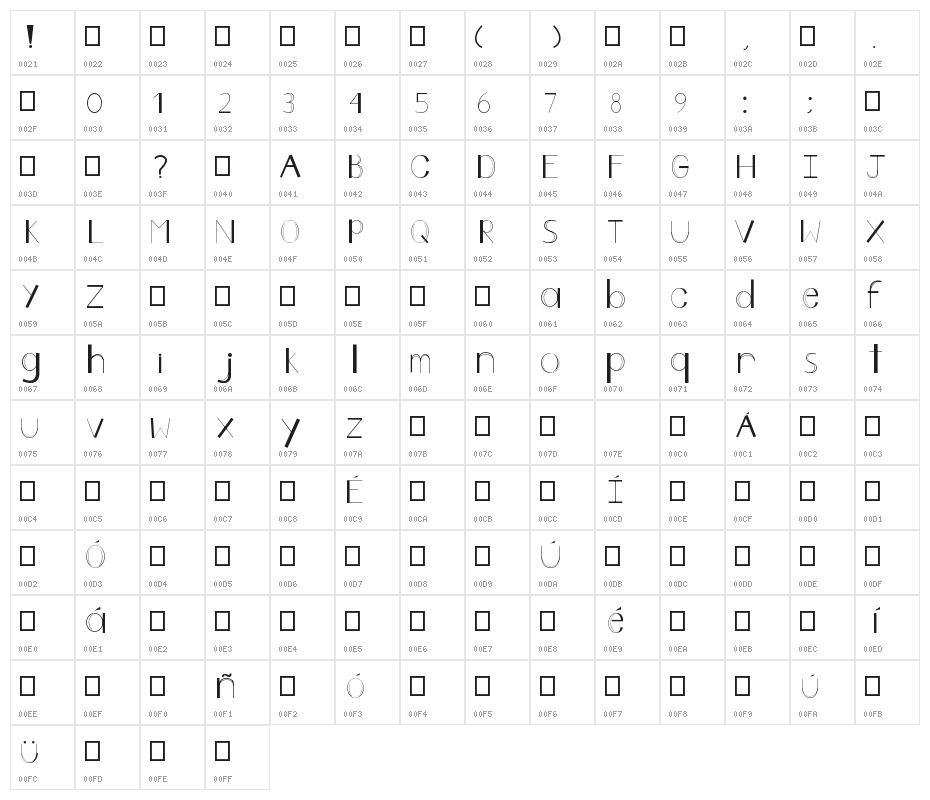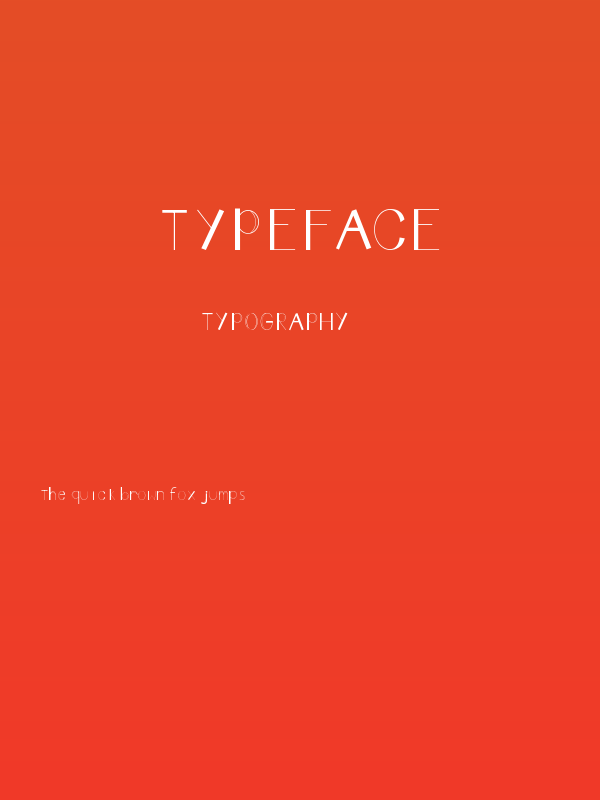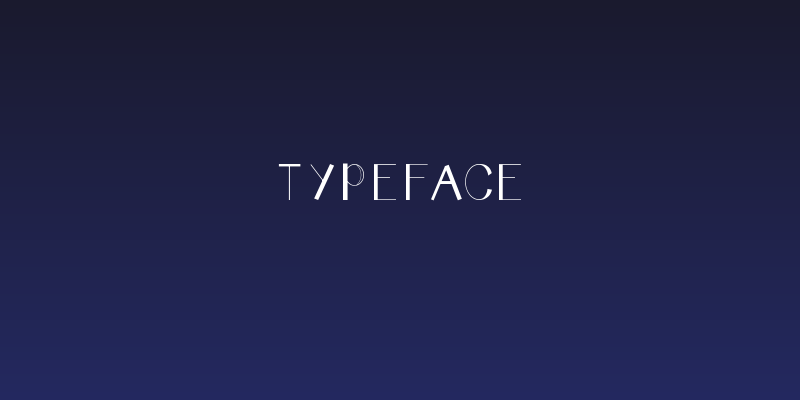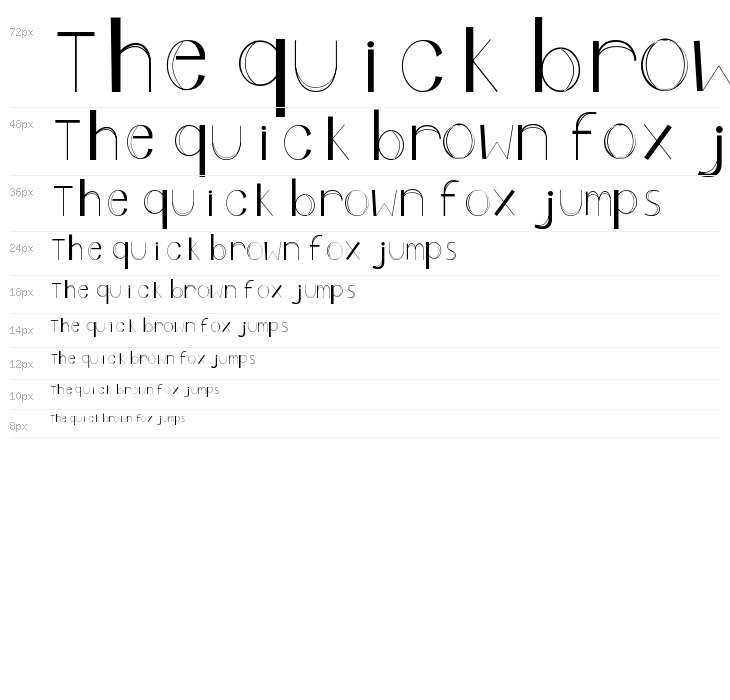
Typeface Font
Typeface Description
This typeface features a unique blend of geometric and modern elements, characterized by its distinct contrast between thick and thin strokes. The uppercase letters exhibit a clean, architectural style with sharp angles and smooth curves, while the lowercase letters maintain a consistent flow with a slightly playful touch. The numerals are designed with a similar aesthetic, ensuring readability and visual harmony. Special characters are thoughtfully integrated, maintaining the overall design coherence. This font's innovative style makes it suitable for contemporary design projects.
| Proposed Projects | Ideal for branding, editorial design, advertising, and digital interfaces where a modern and distinctive look is desired. |